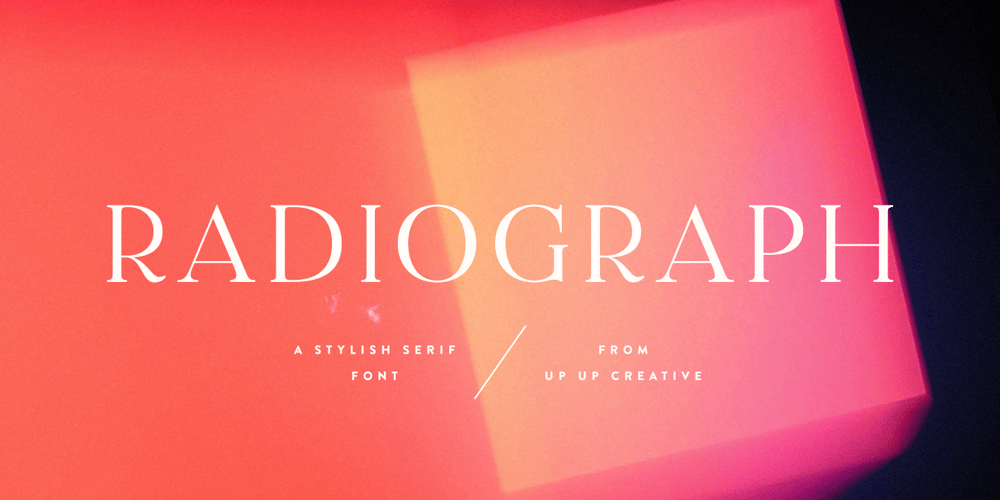
Radiograph
Radiograph font
Radiograph Font Family was designed by Julie Green and published by Up Up Creative. Radiograph contains 1 styles and family package options. Radiograph is a stylish serif font with subtle curves and playful proportions. It’s equally at home in all-caps headlines as it is in full paragraphs. Radiograph is perfect for headlines, editorial design, monograms, branding, logos, poster design, and more.Radiograph includes approximately 480 glyphs and 16 standard and discretionary ligatures. OpenType features include a smattering of character variants, ligatures, and multilingual support (including multiple currency symbols).The OpenType features can be very easily accessed by using OpenType-savvy programs such as Adobe Illustrator and Adobe InDesign.